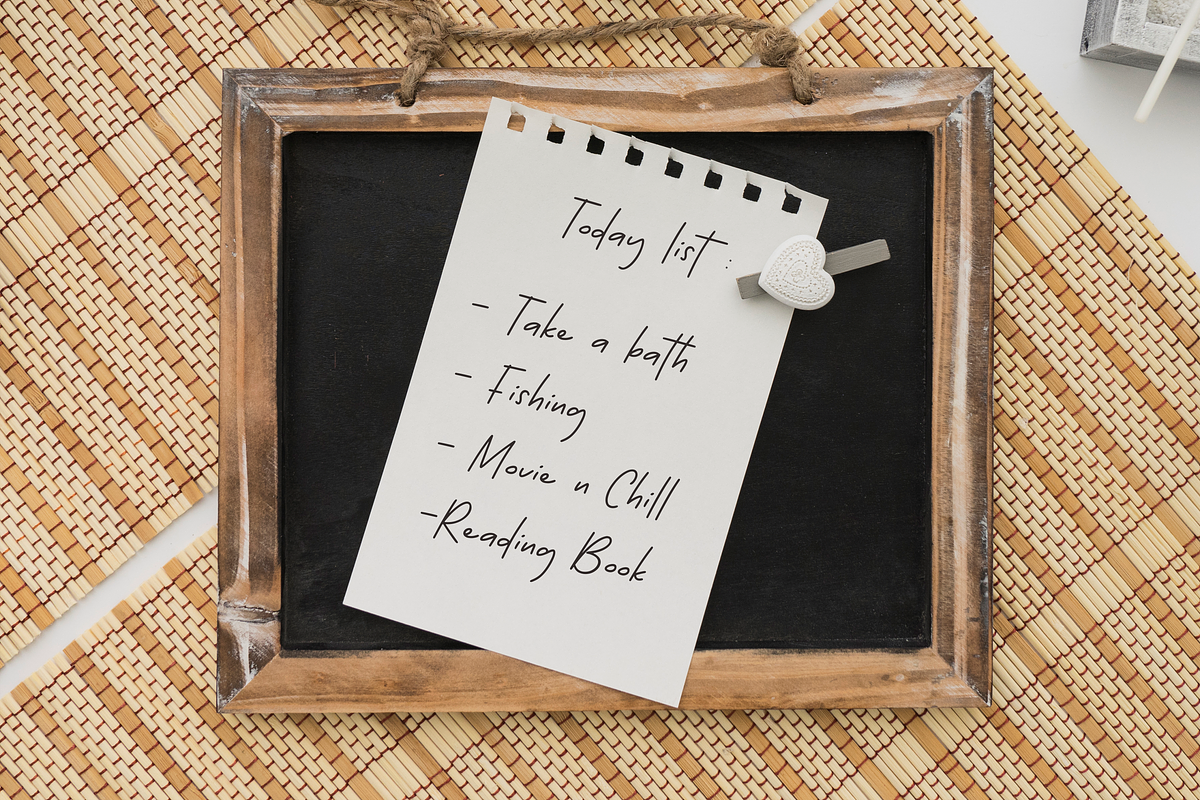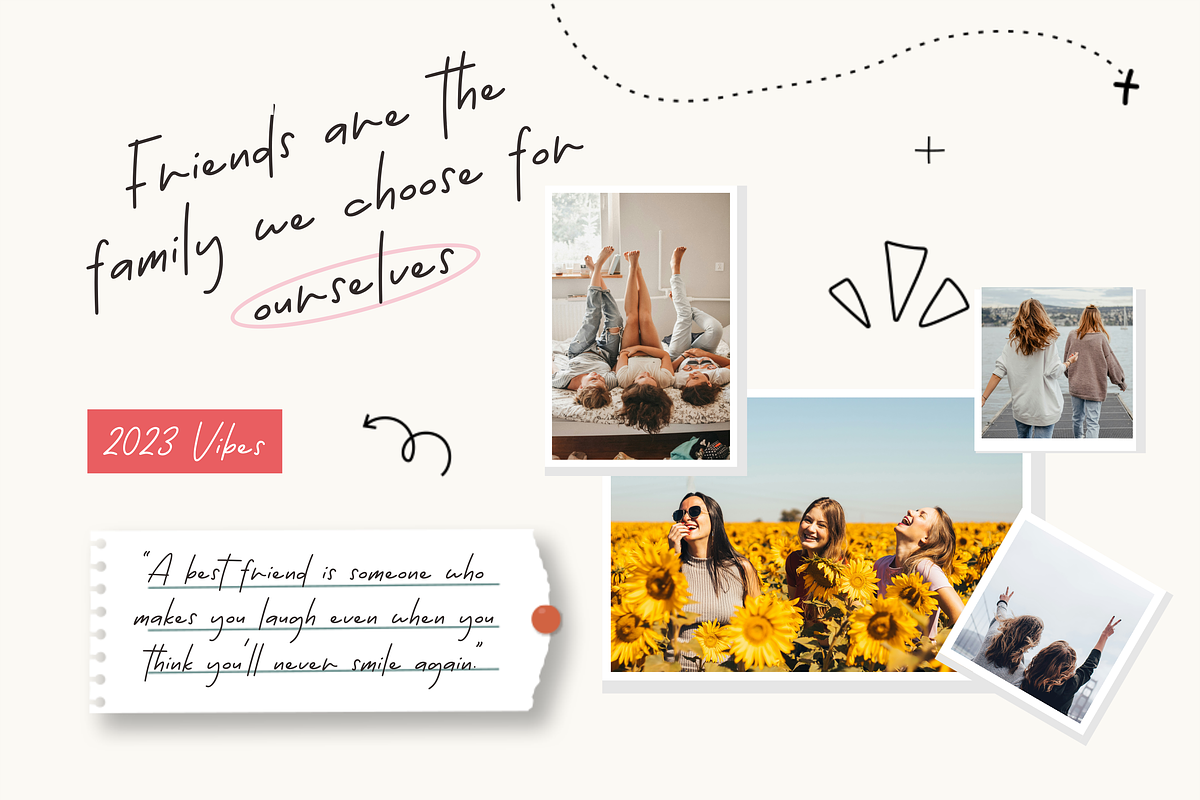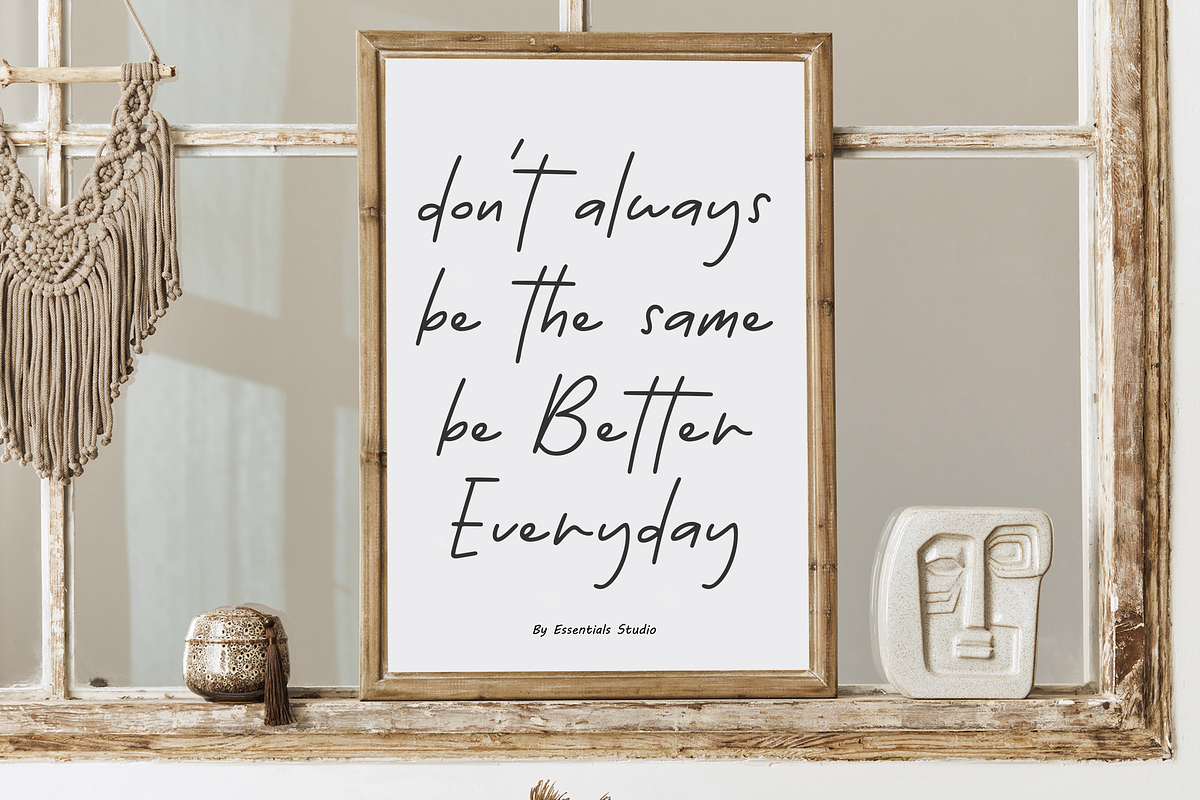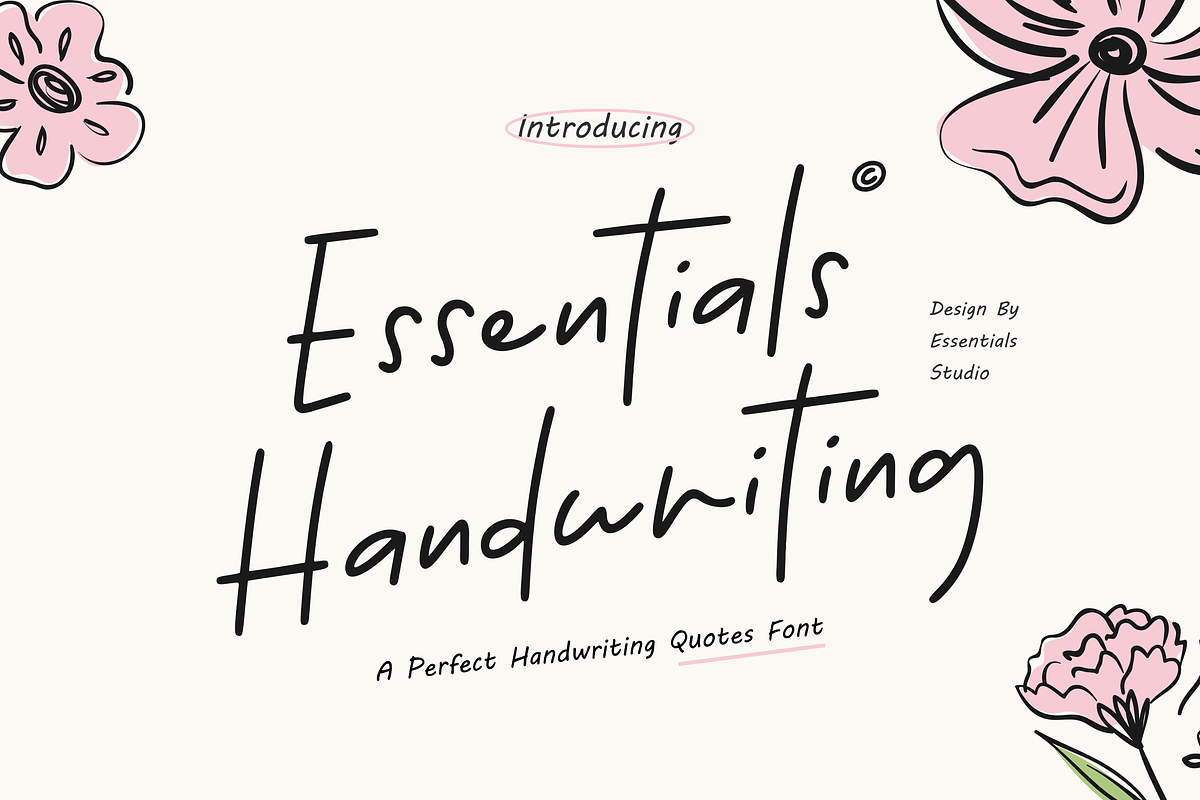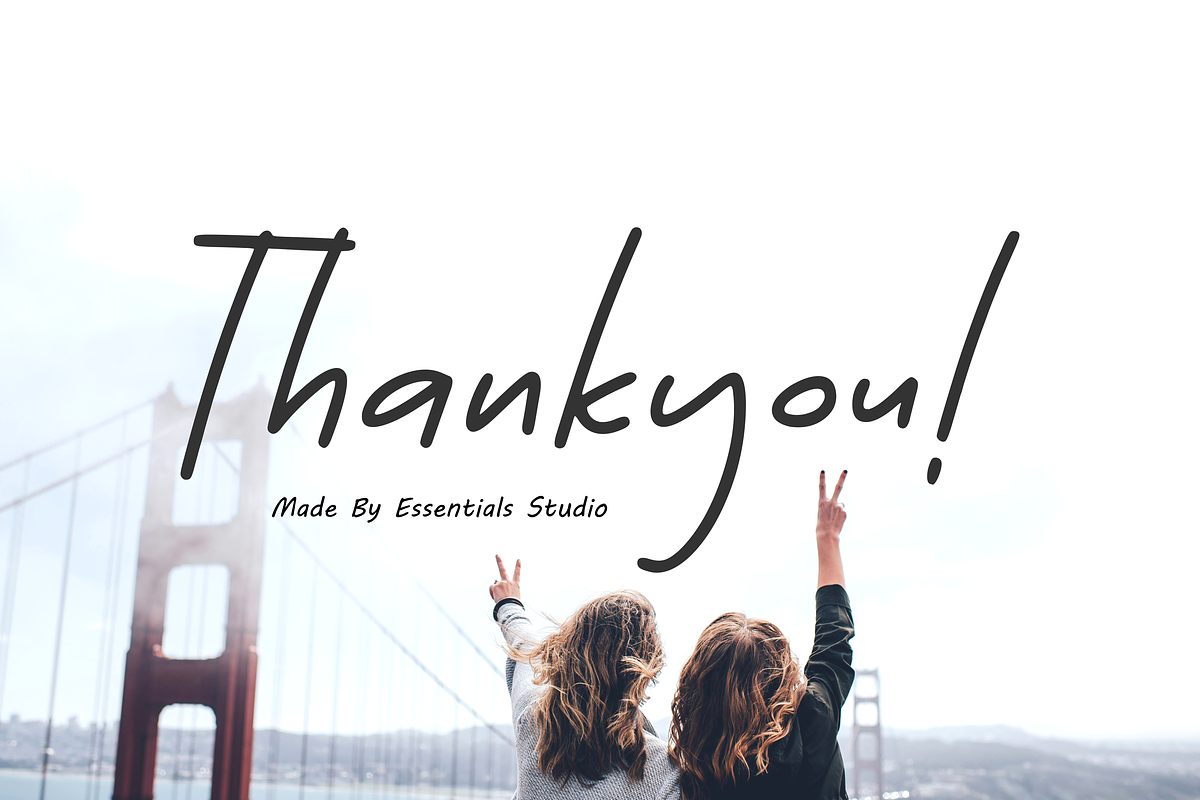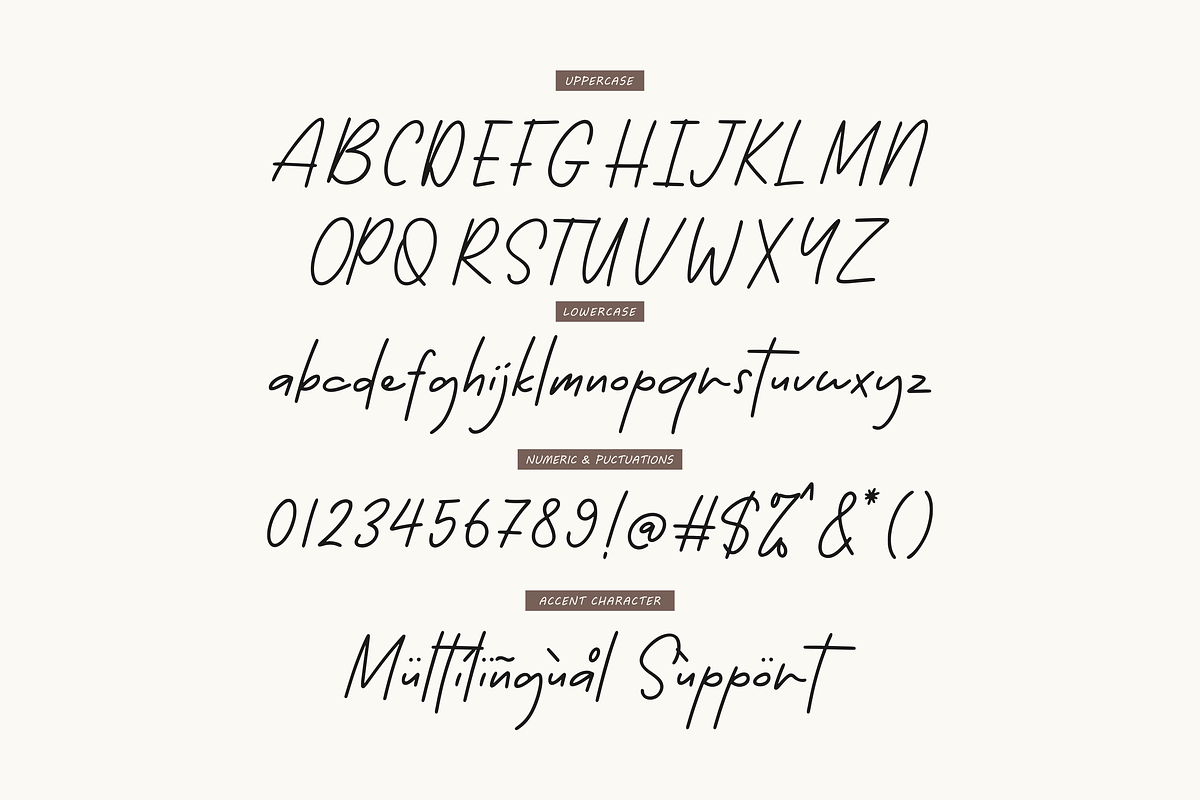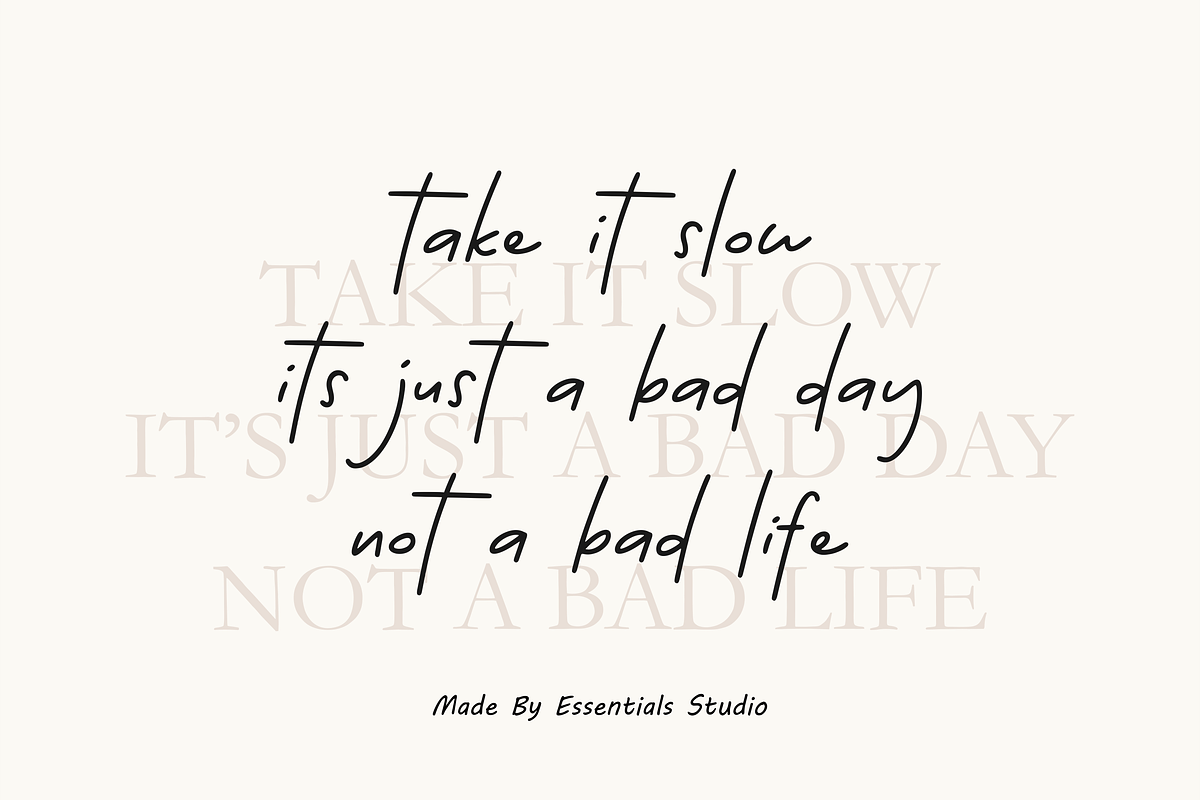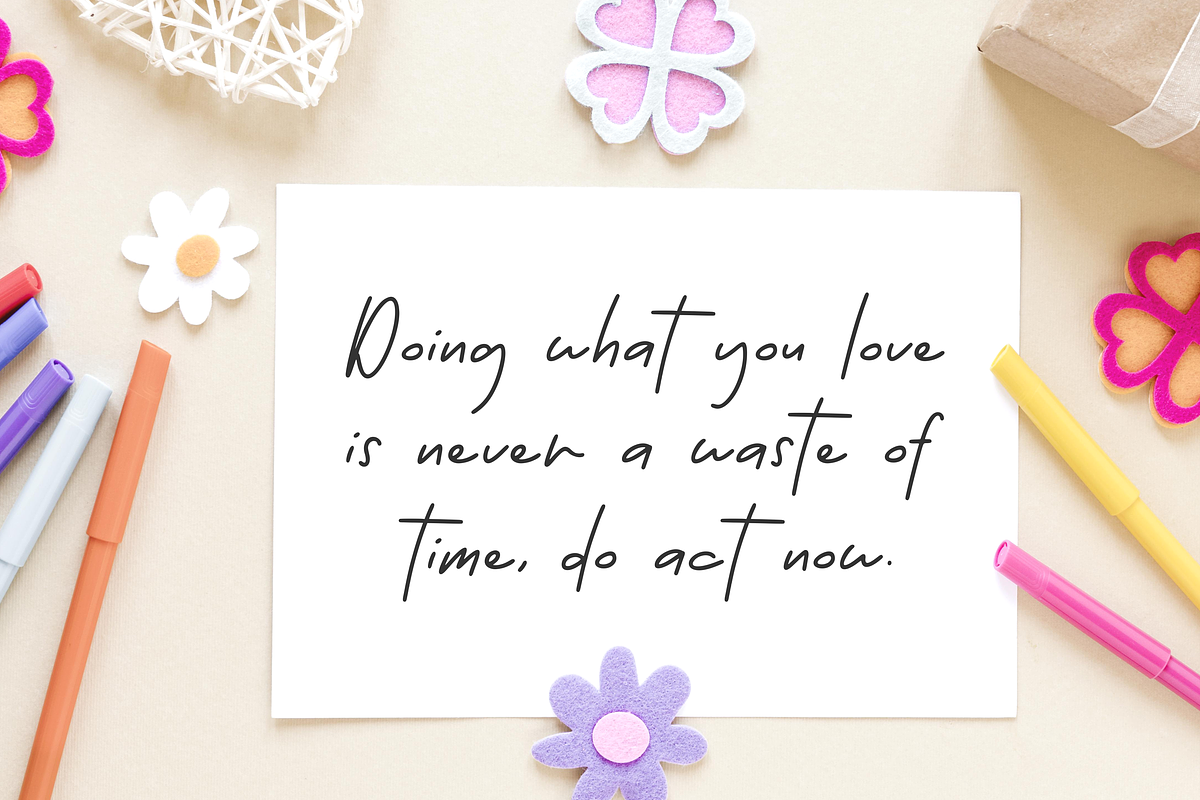
Essentials Handwriting
Introducing "Essentials Handwriting" - a sleek, versatile font meticulously crafted by Essentials Studio. Perfect for an array of creative needs such as captivating quote designs, through to stylish birthday layouts, Craftig, invitations, books, planners, and more. Imbue your design projects with the distinct aesthetics of "Essentials Handwriting," enabling you to bring your unique vision to life.